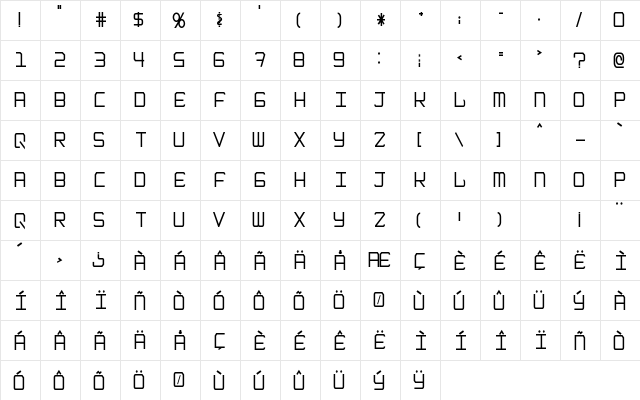
EpicenterRegular Regular
| Foundry | Xerographer Fonts |
| Designer | Max Infeld Xerographer Fonts |
Design Context for EpicenterRegular Typeface
EpicenterRegular is a composed and adaptable typeface that performs quietly and consistently across a wide range of design contexts.